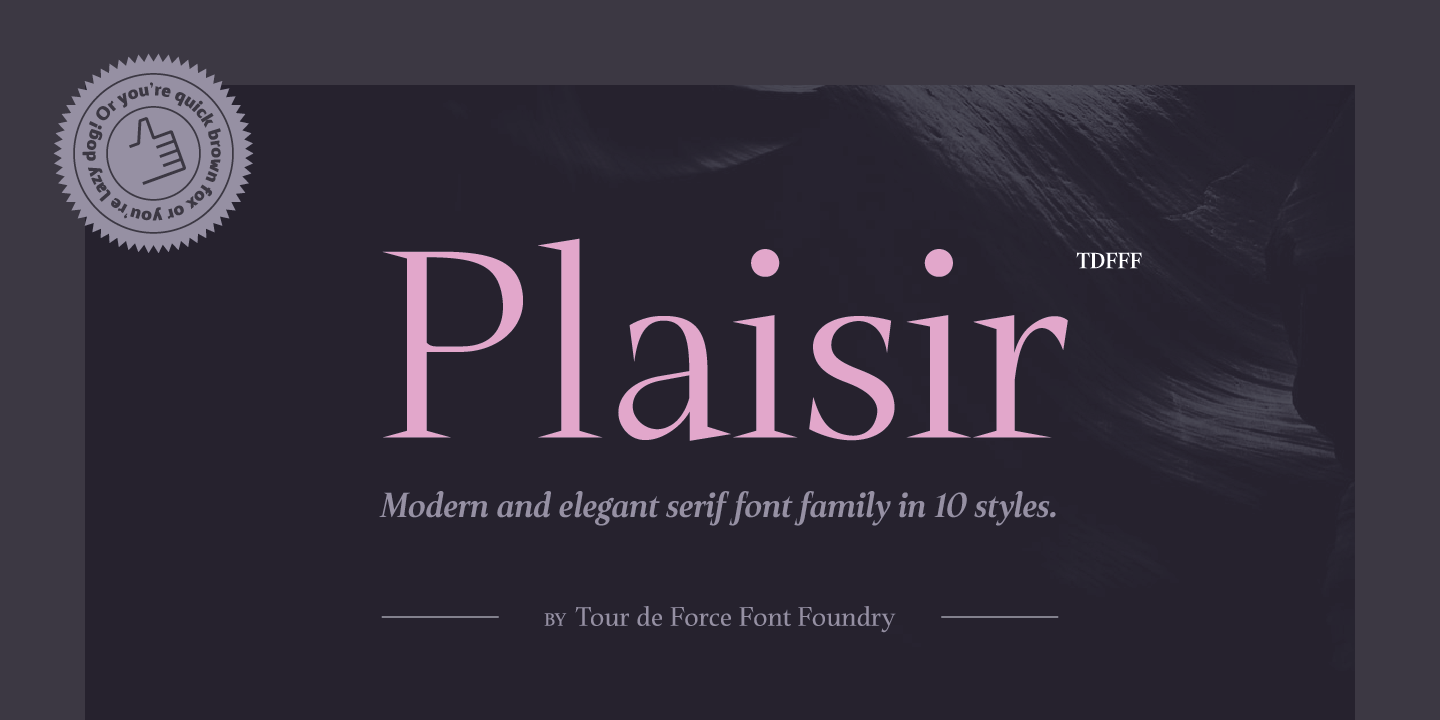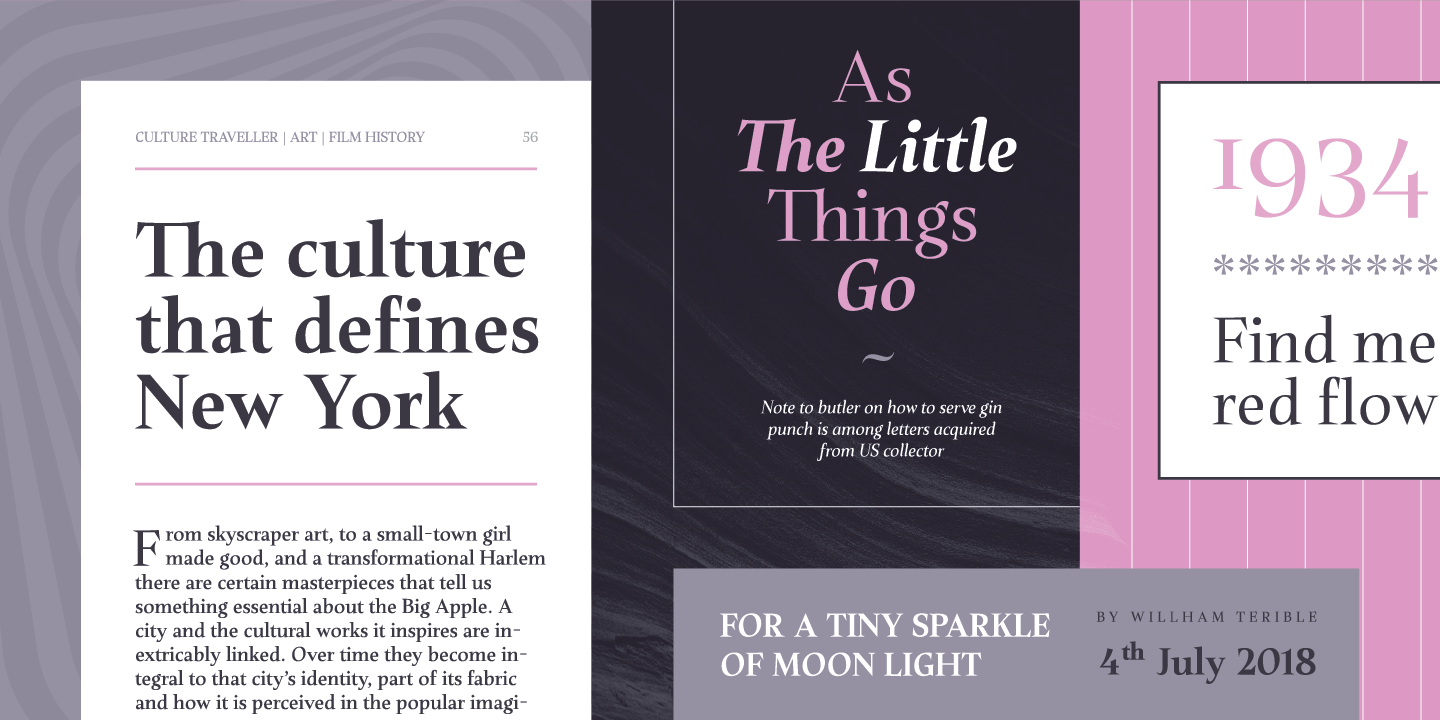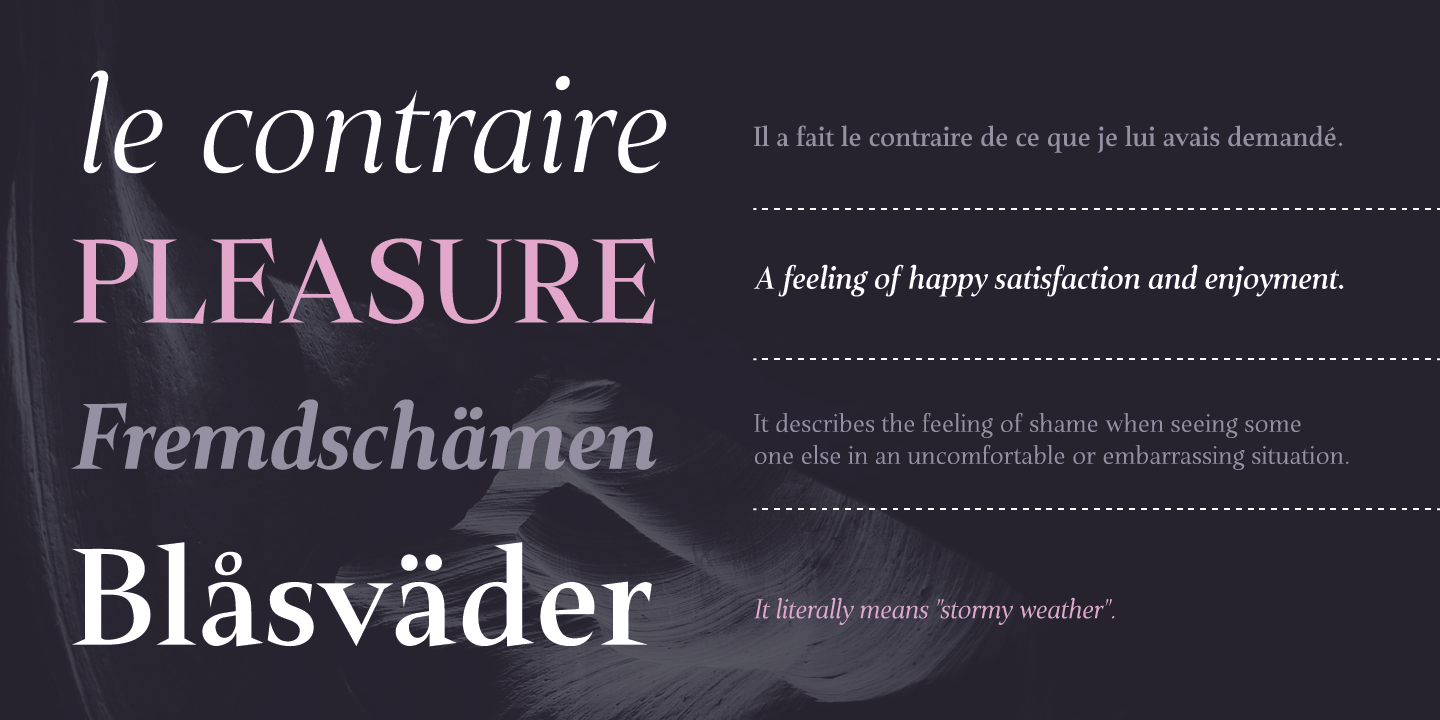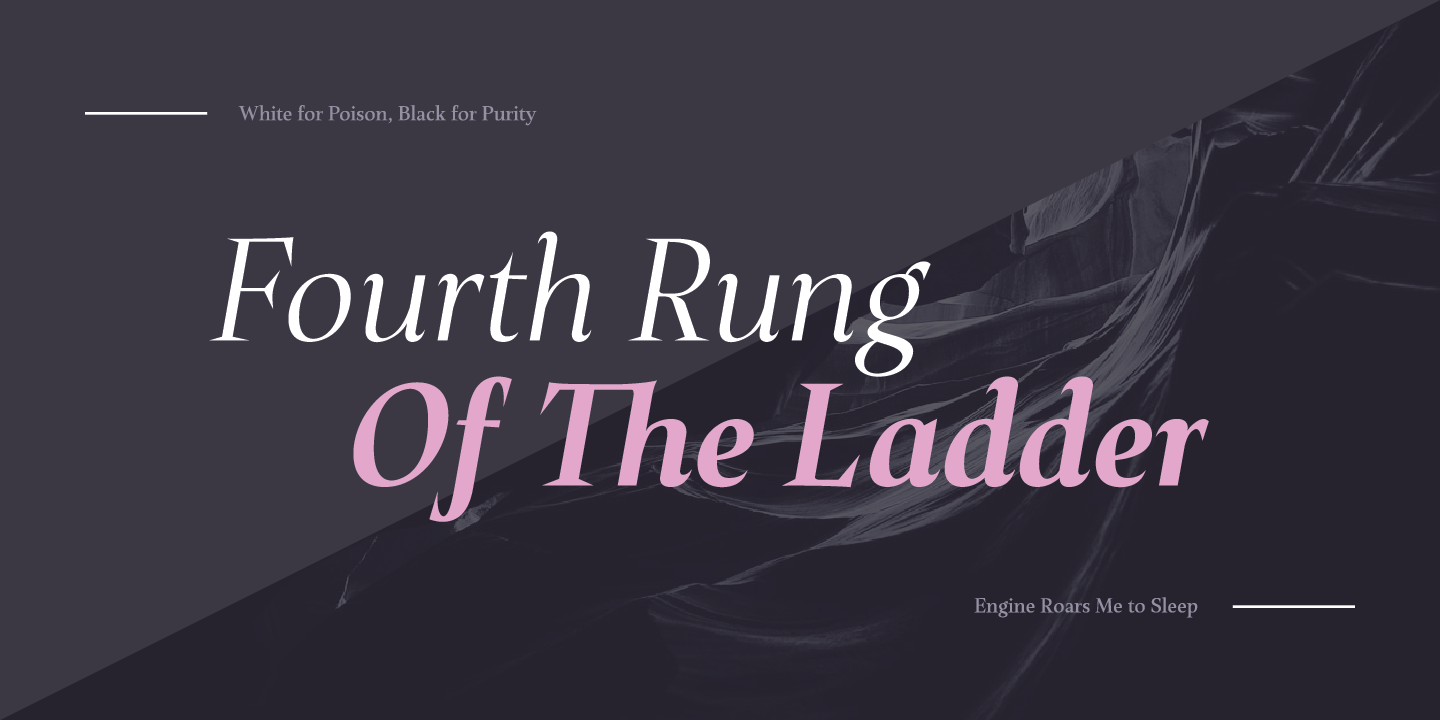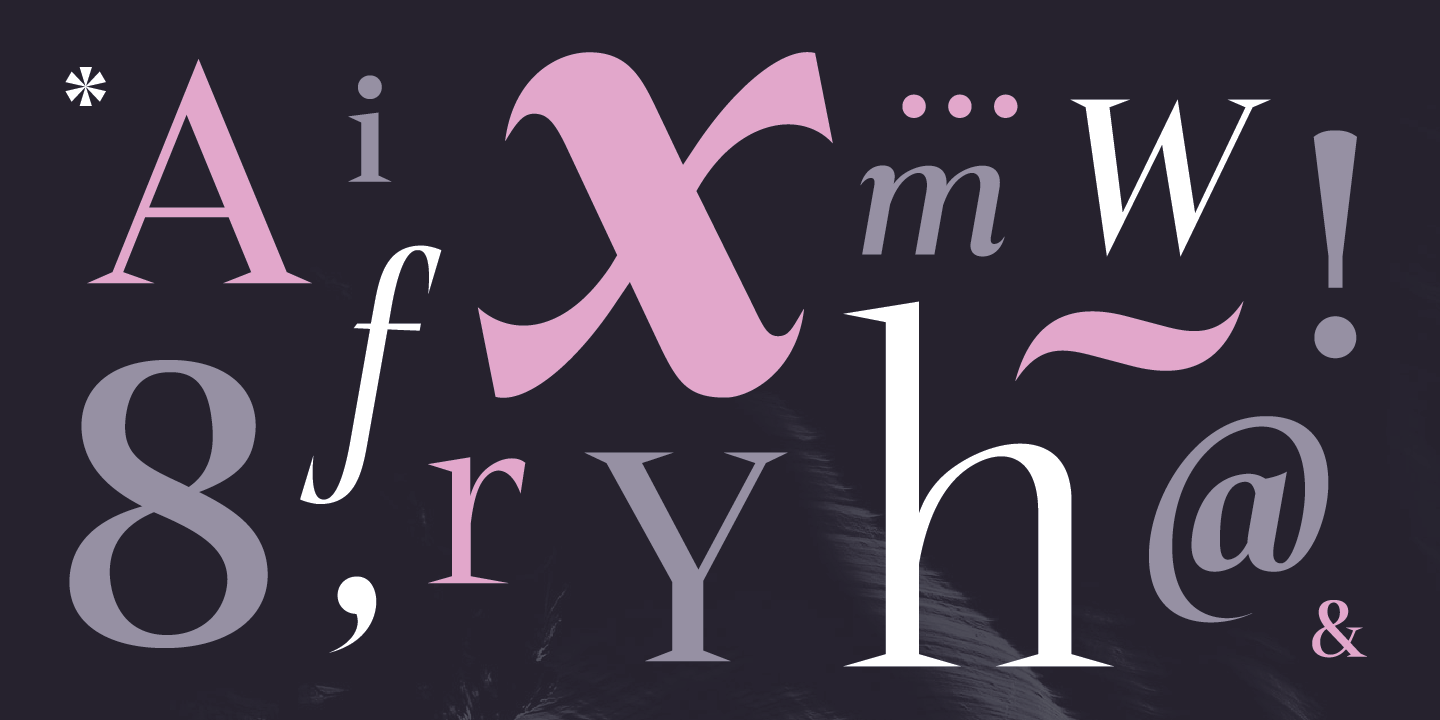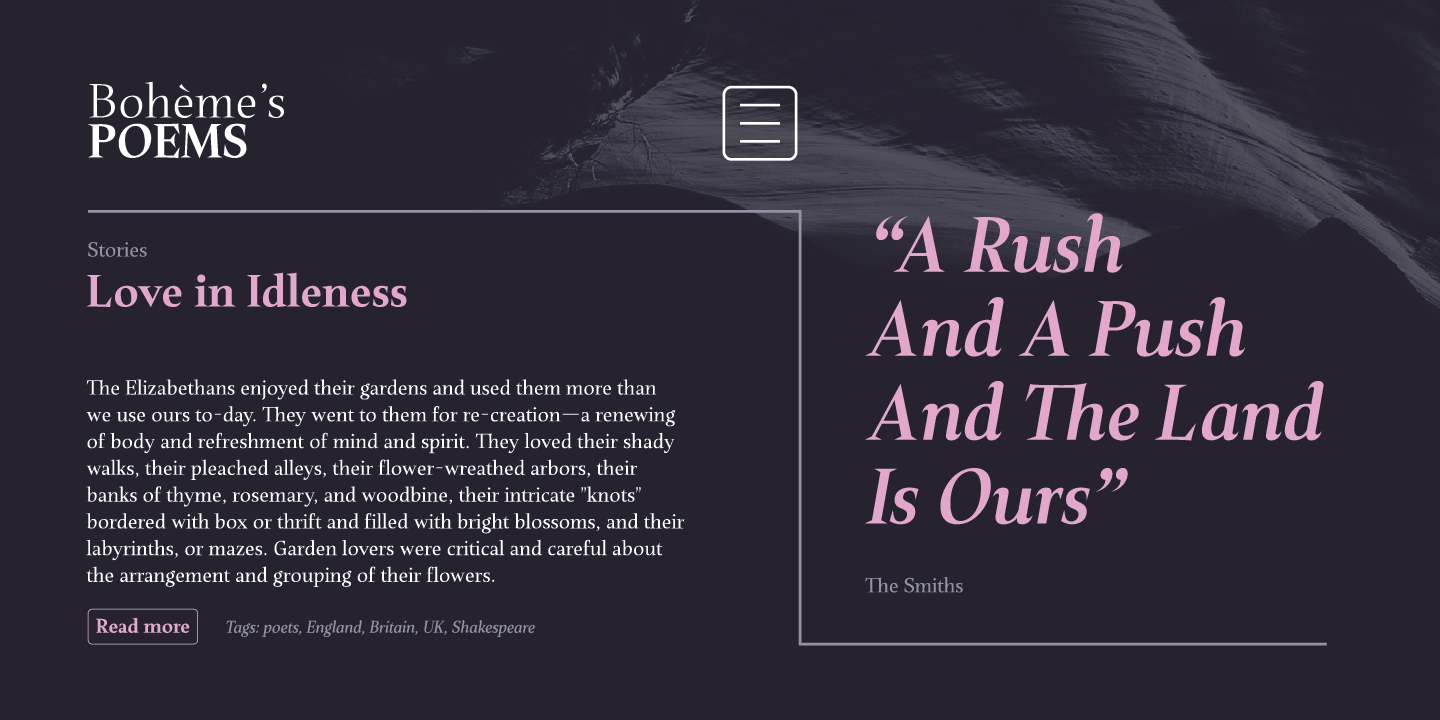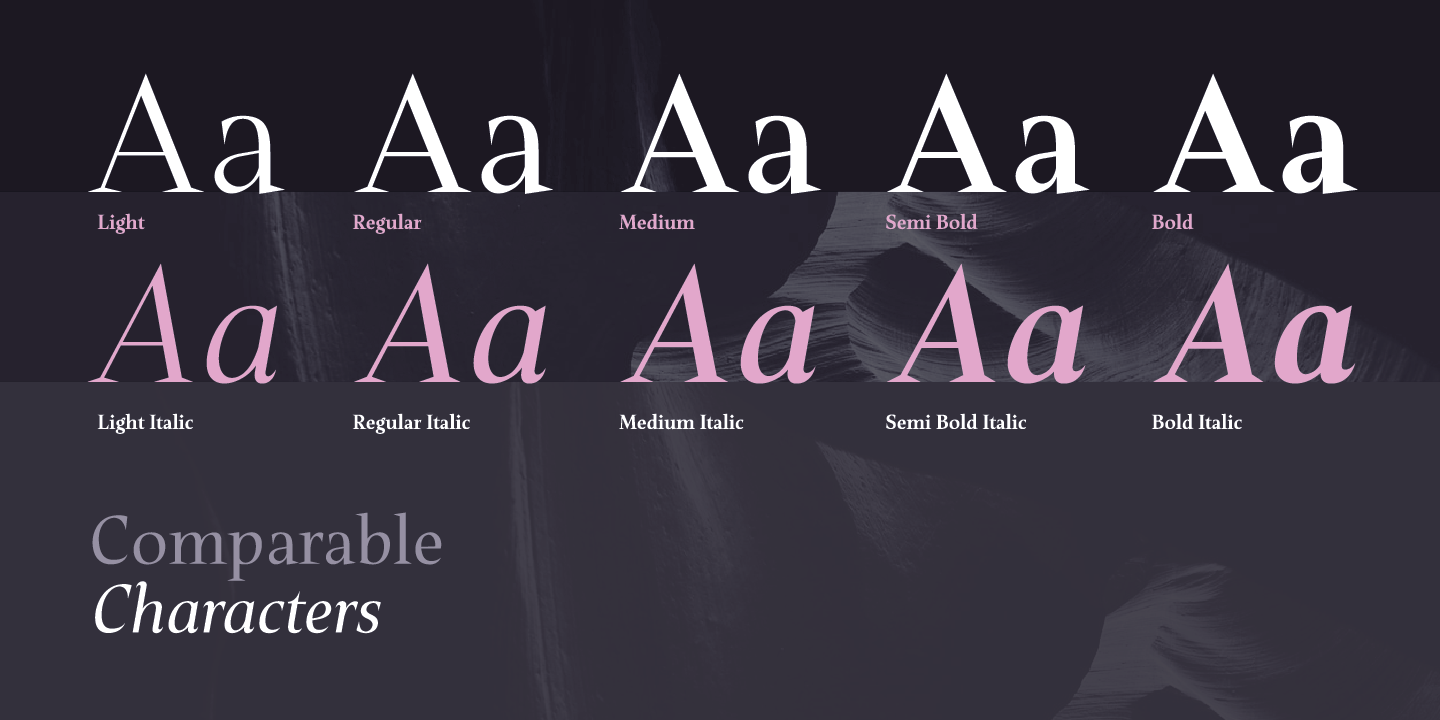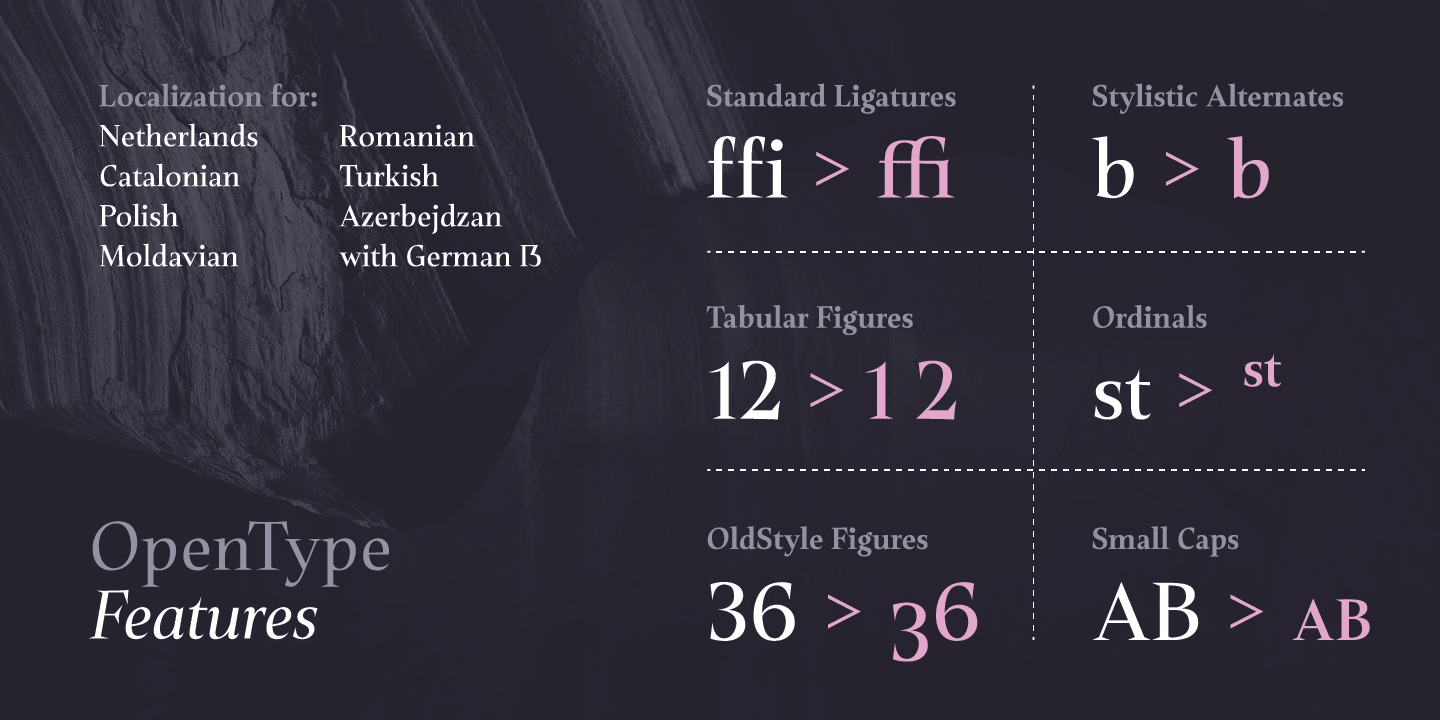
Plaisir came unexpectedly, as in between release while we waited for client's confirmation for their project.
After trying a couple of different approaches, Plaisir landed as elegant modern sans serif family with 5 weights and matching Italics. With sharp triangle serifs and wide endings, Plaisir was constructed with decent stem contrast that flirt with display category. It is versatile, legible, recognizable family with fluent Italics.
Equipped with Standard Ligatures, Tabular Figures, OldStyle Figures, a few Stylistic Alternates, basic Ordinals and Latin Small Caps, Plaisir is a working horse that will suit in any required situations.